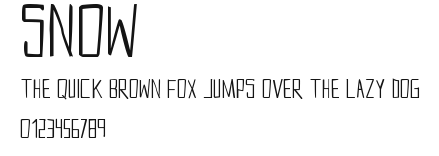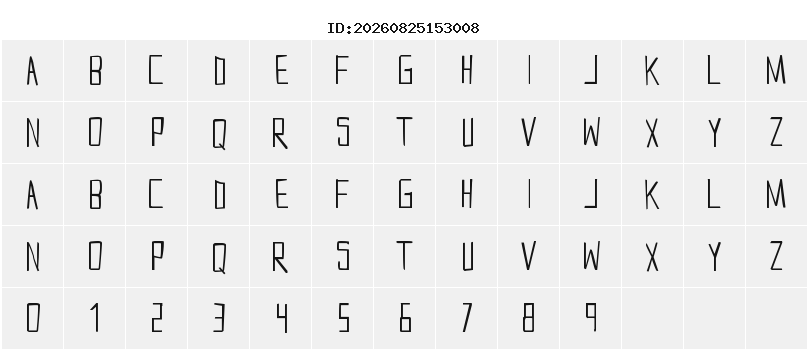
• Font Name: SNOW
• Full Font Name: SNOW
About SNOW.ttf
SNOW.ttf is a modern, elegant sans-serif font designed for ultimate readability and visual harmony. Perfect for branding, headlines, web design, and print materials.